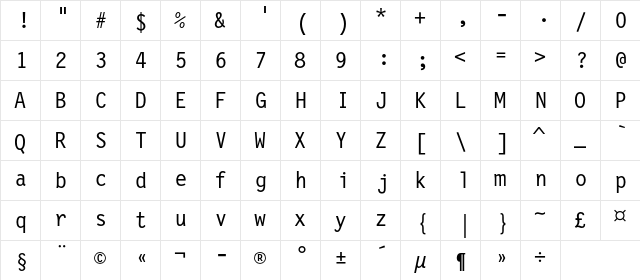
LettrGoth12C BT Regular
Design Context for LettrGoth12C BT Typeface
LettrGoth12C BT takes a measured approach to typography — its balanced proportions and neutral character make it a reliable workhorse for both digital and print work.